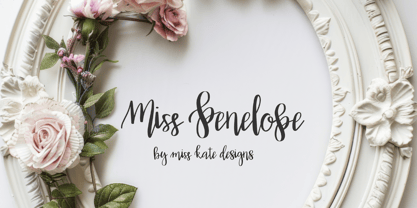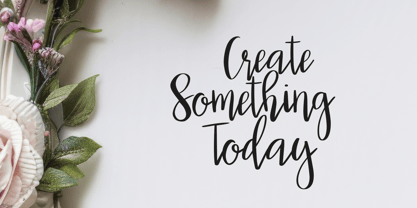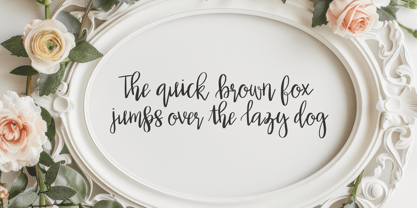
Miss Penelope
by Miss Kate Designs
The Miss Penelope Font Family was designed by and published by Miss Kate Designs. Miss Penelope contains 1 styles. More about this family
Miss Penelope is a pretty, script font that doesn't take itself too seriously. Perfect for wedding invitations, party invitations, logos, scrapbooking, card making and more!